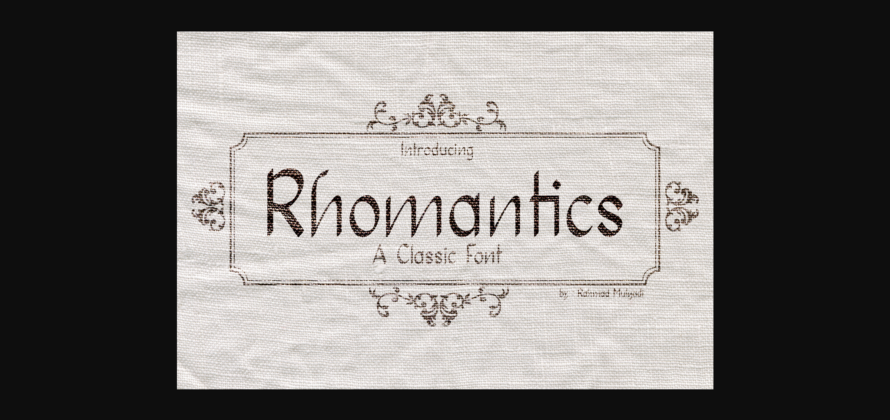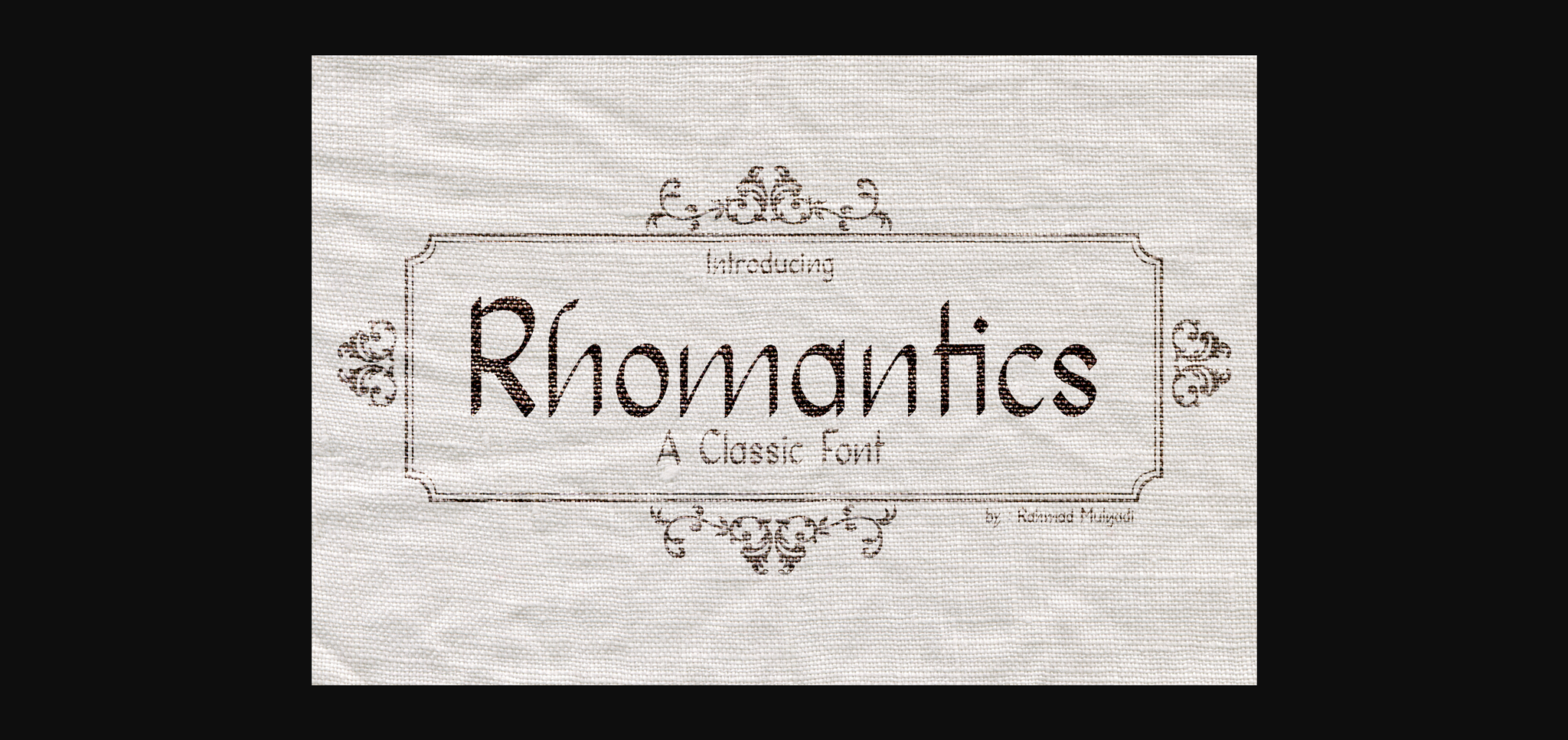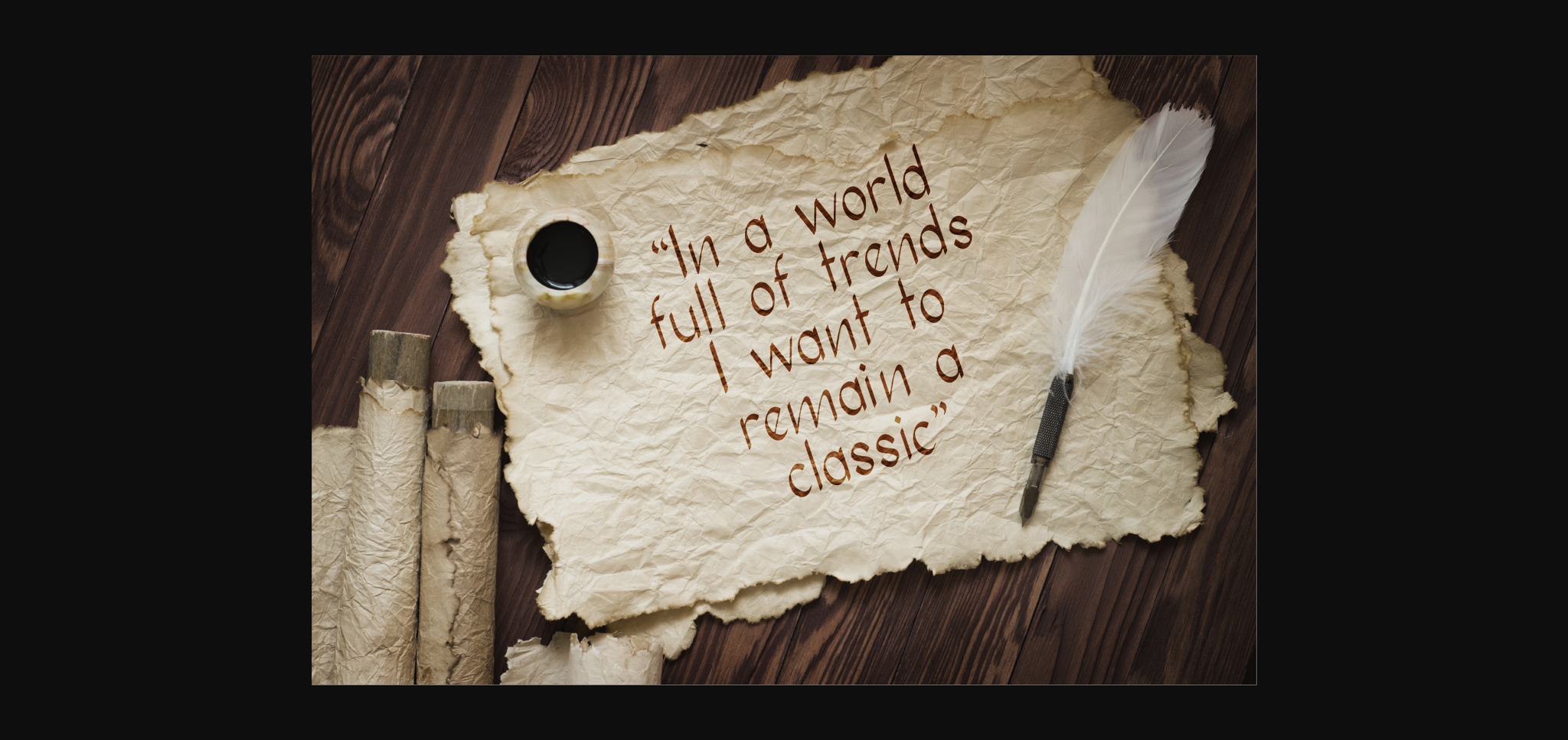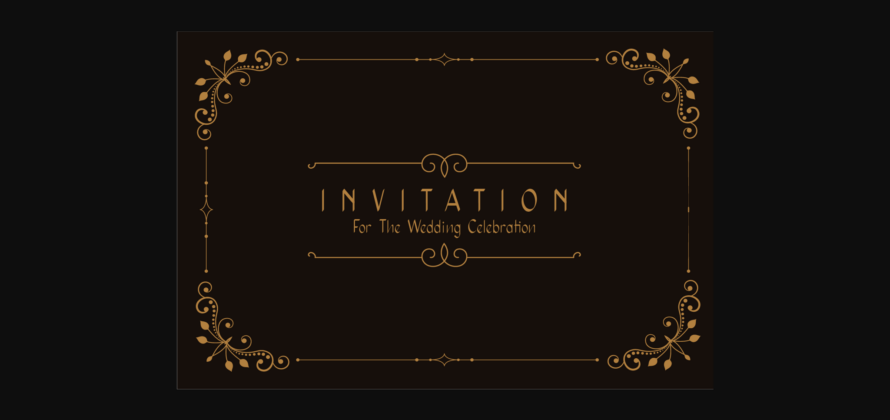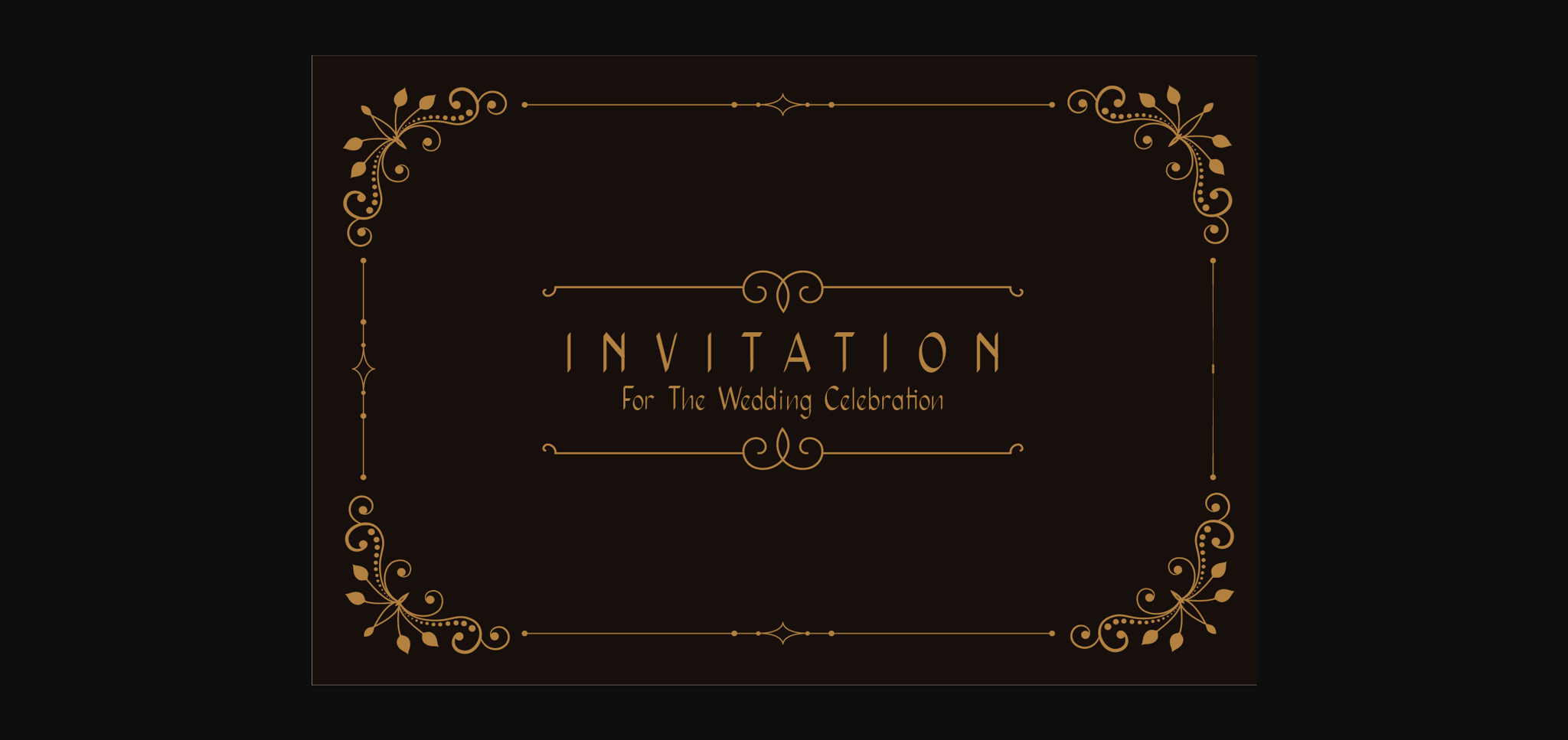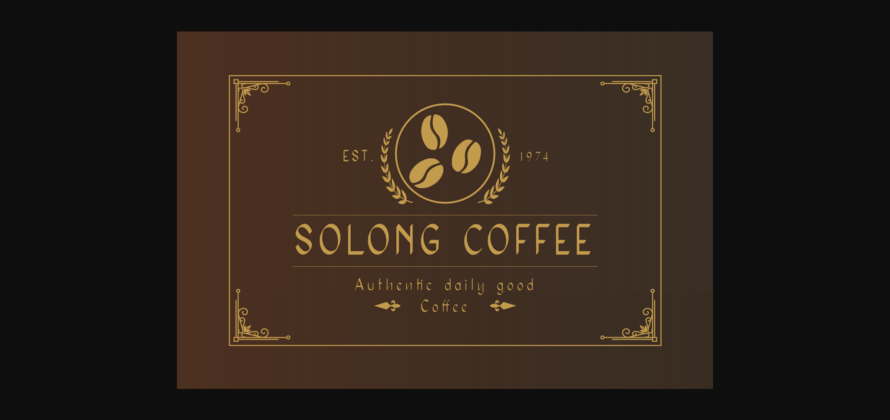
Rhomantics Font
Rhomantics is a thin smooth and elegant sans serif font. No matter the topic, this font will be an incredibly asset to your fonts’ library, as it has the potential to elevate any creation.